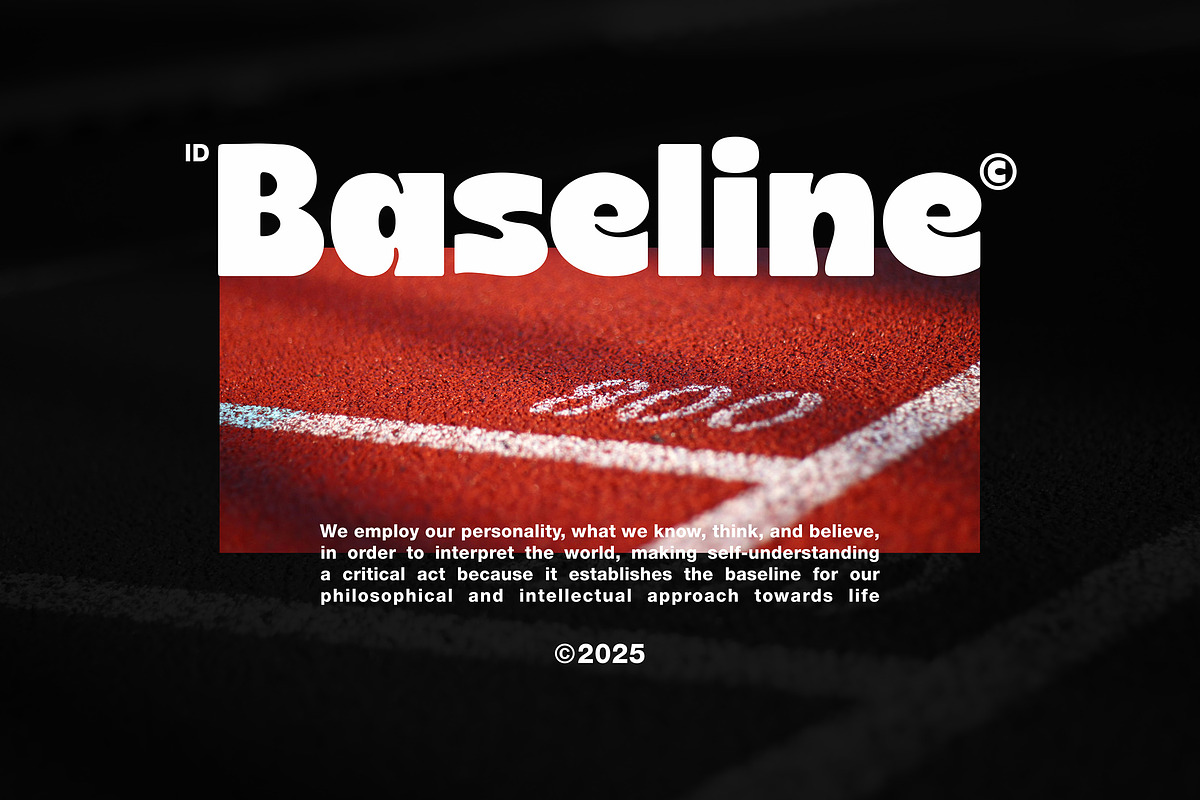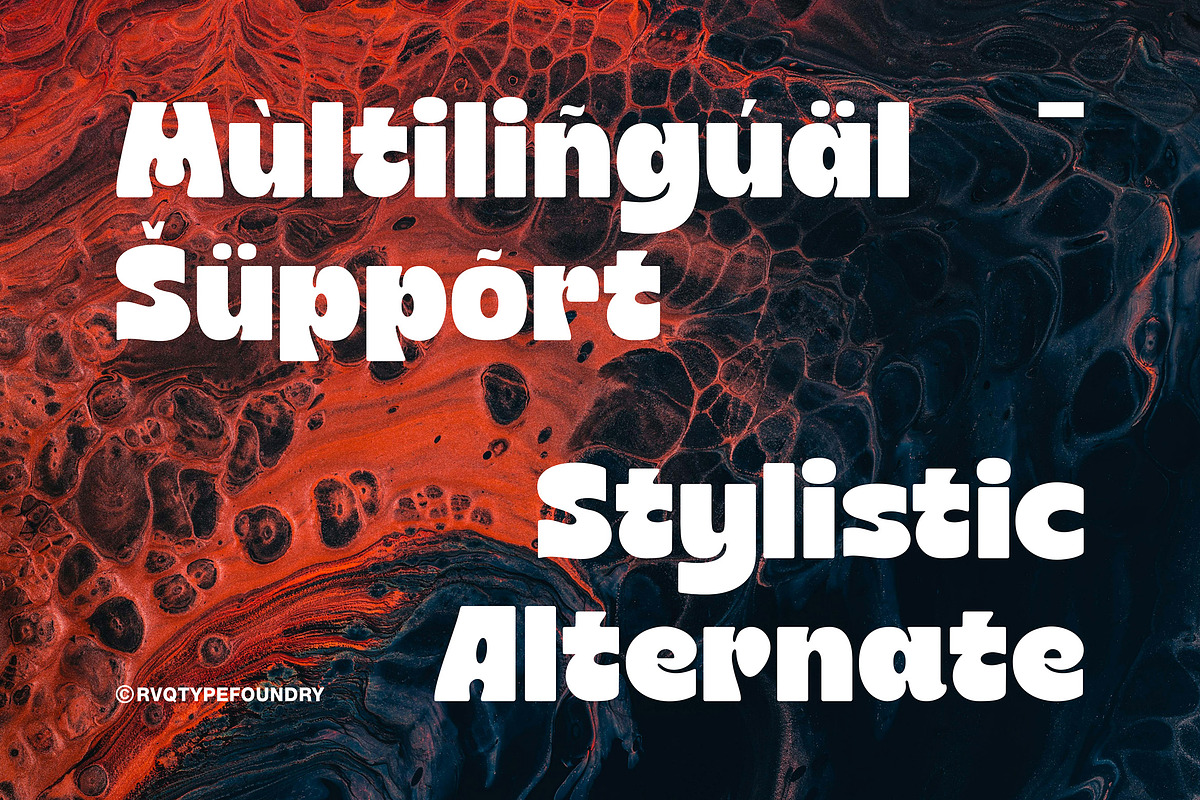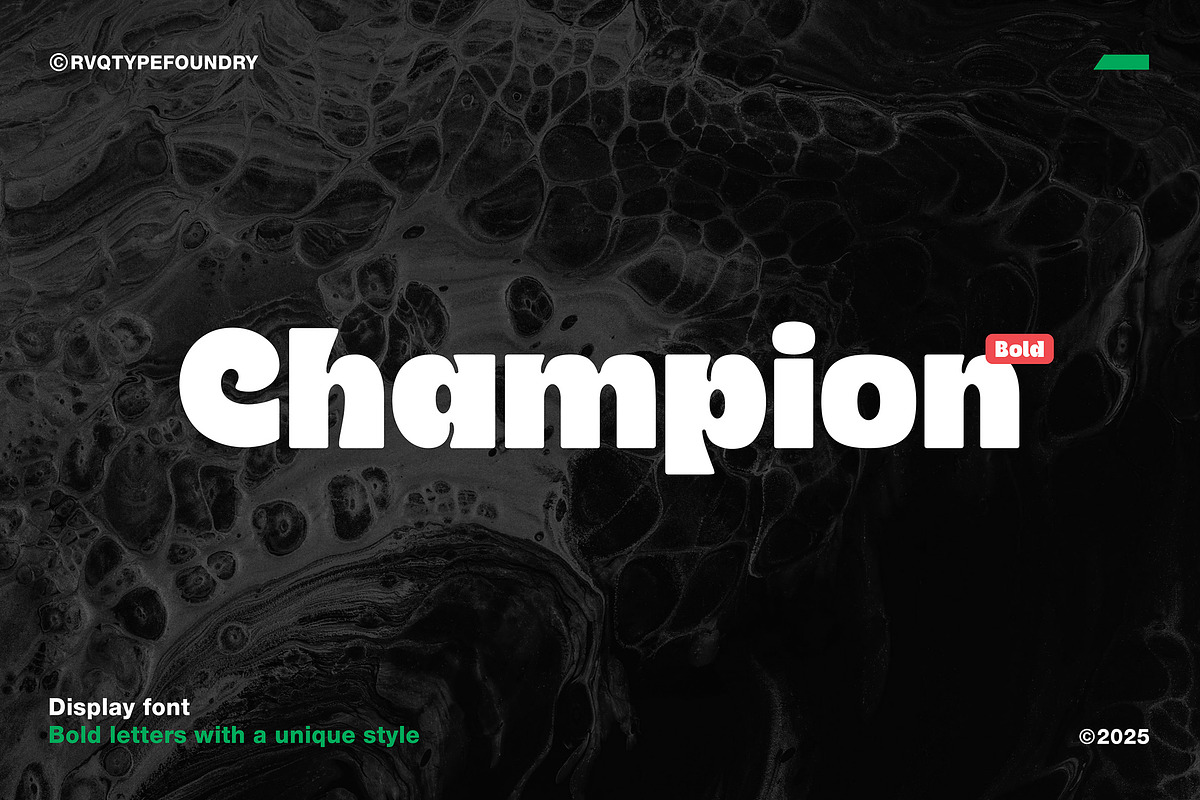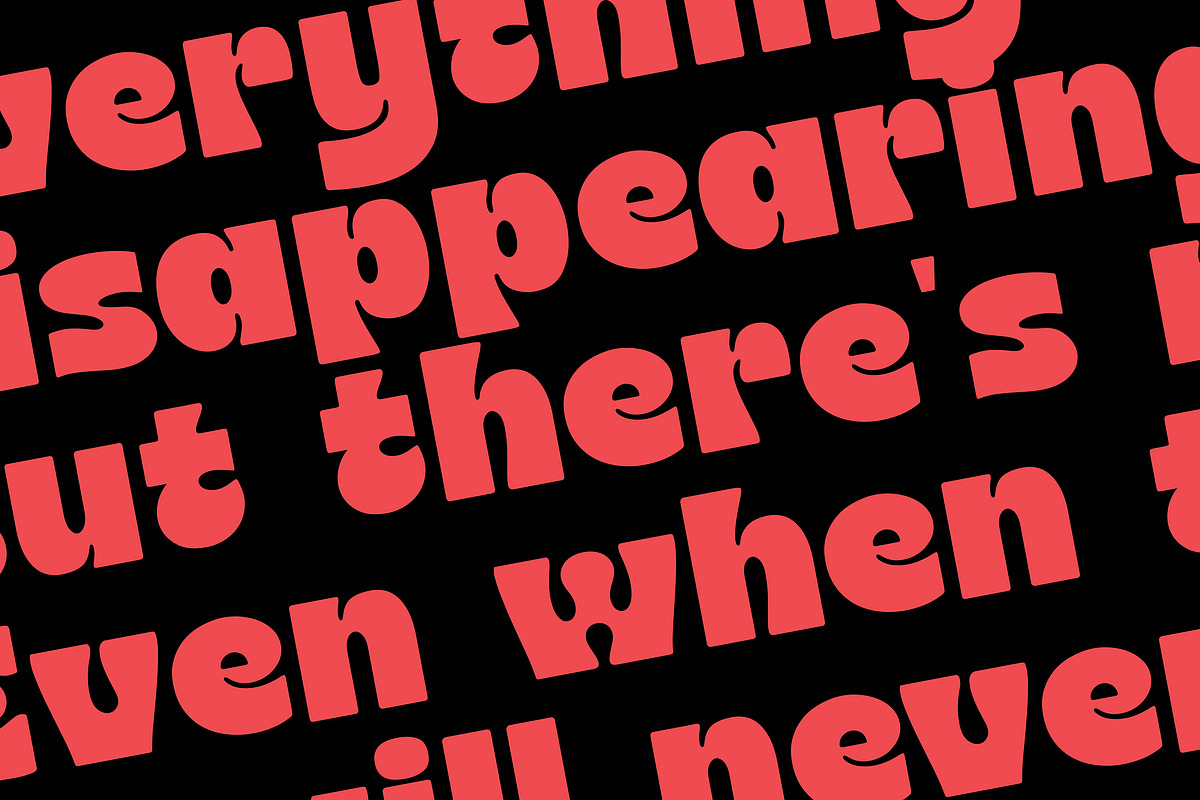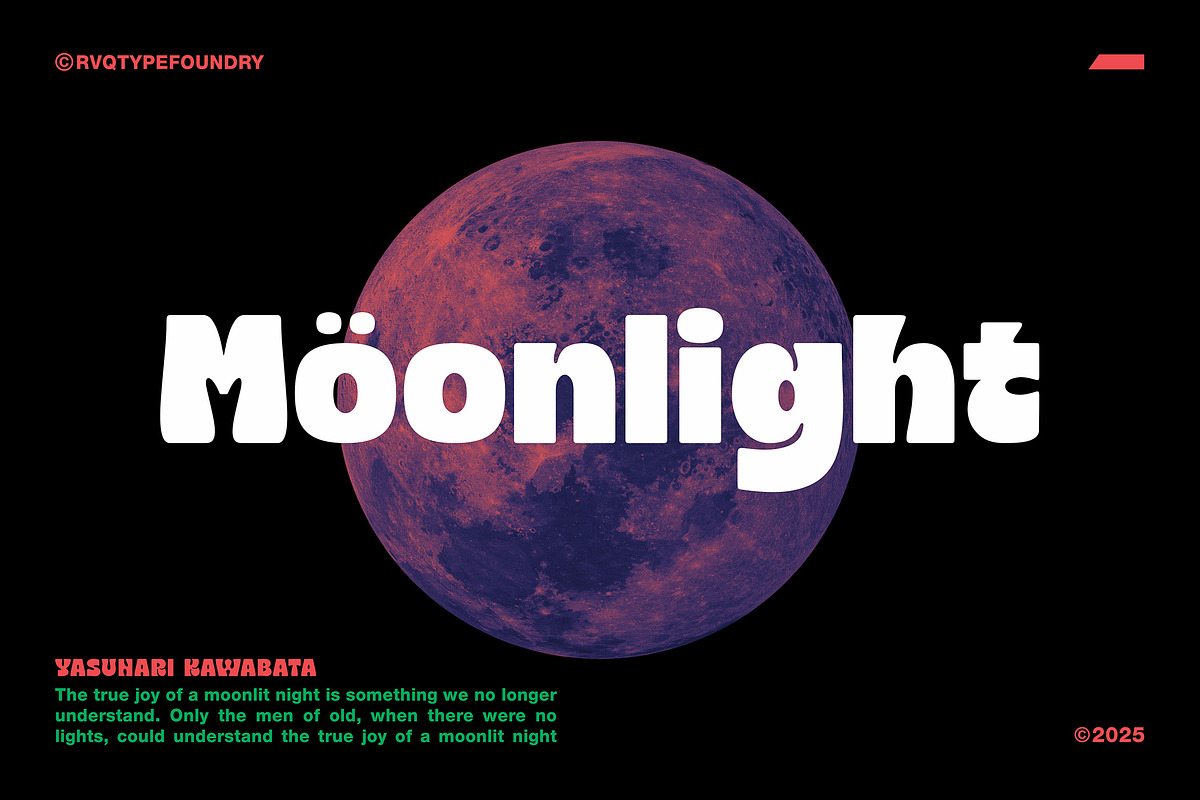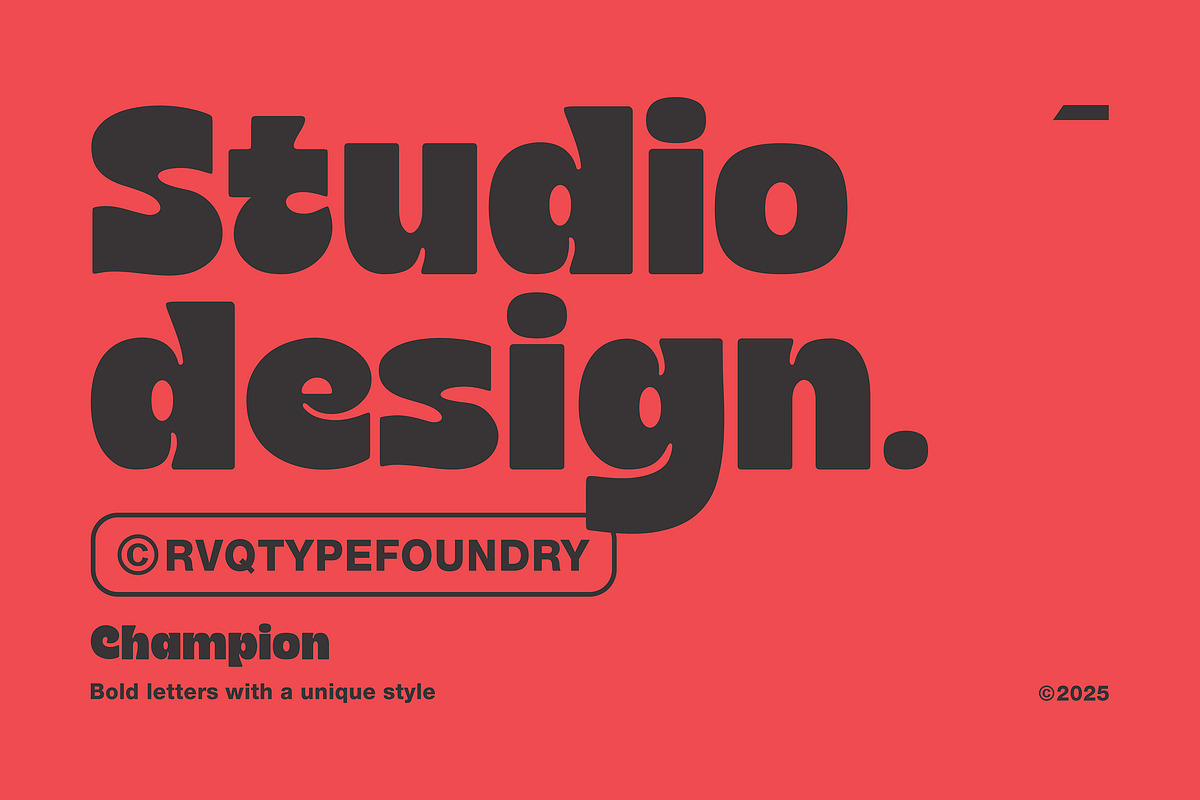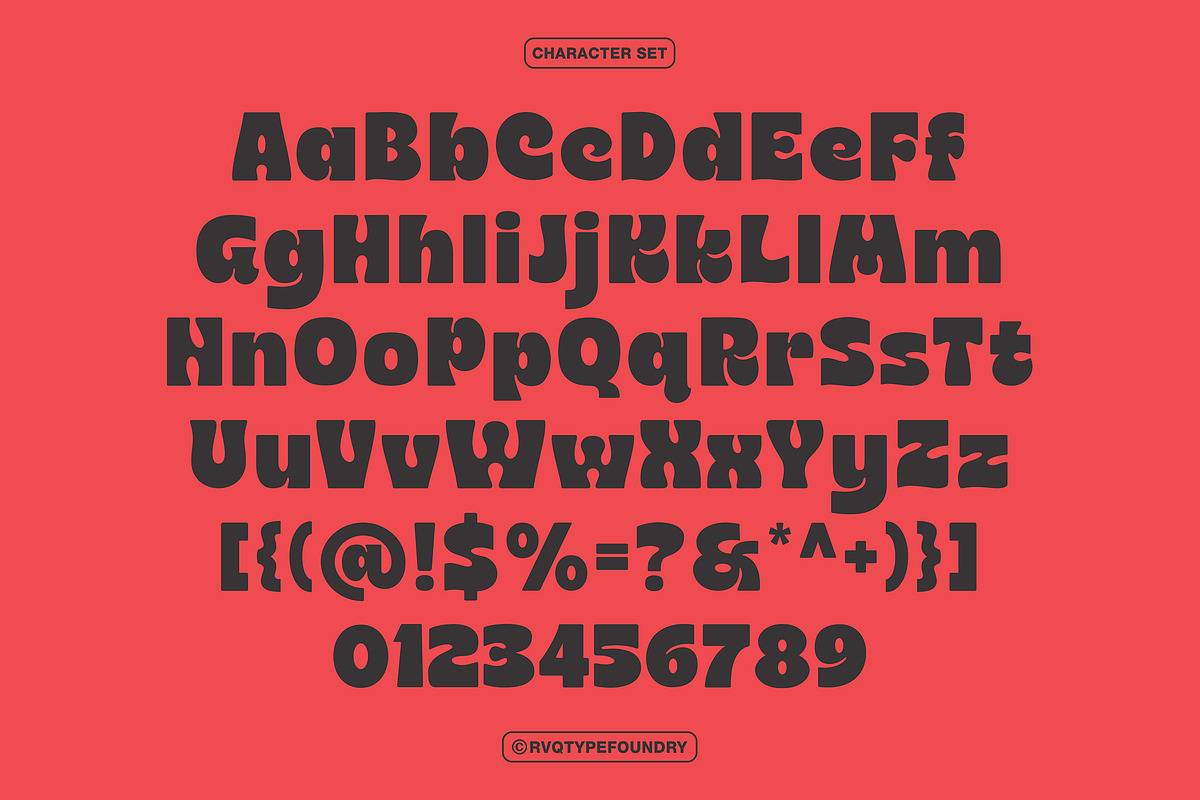
Champion is Bold
Champion is Bold is the new font from Rvq typefoundry ,was created as a Bold font To create the beautiful combination, just mix your words with the alternative glyphs. Champion is Bold includes a full set of capital and lowercase letters, as well as multi-lingual support, currency figures, numerals, punctuation & some extra glyps. Perfect for : for Branding, Logos, Greeting Cards, Stationery Design, Invitations, T-shirts, Apparel, Packaging designs, Posters, Typographic Design, and so much more..
- Character Set A-Z
- Stylistic Alternates.